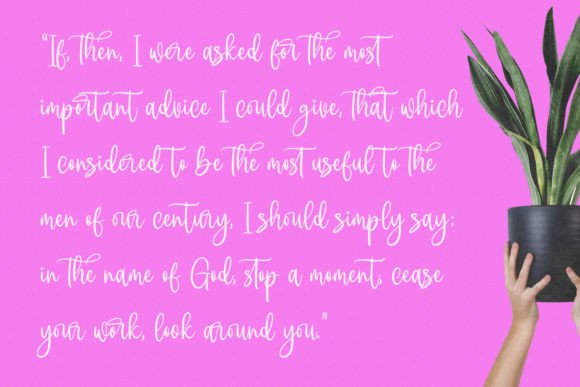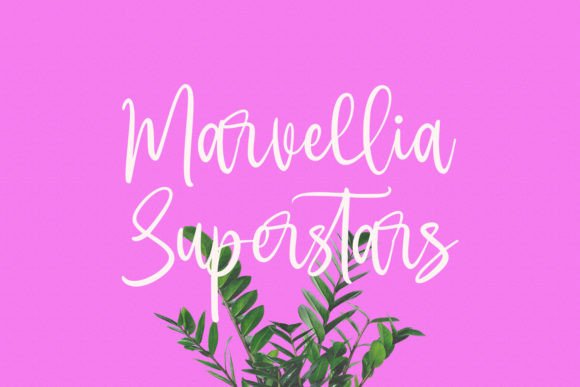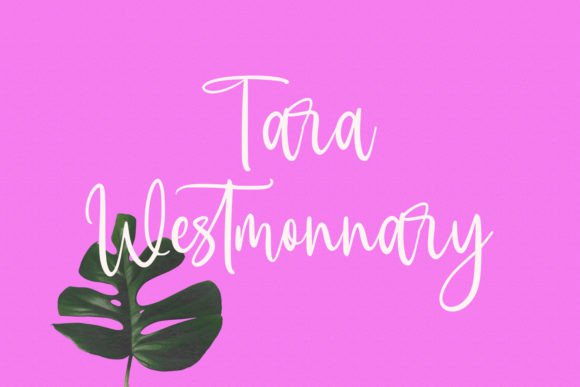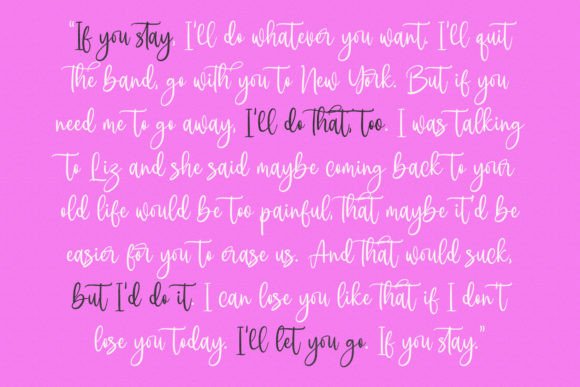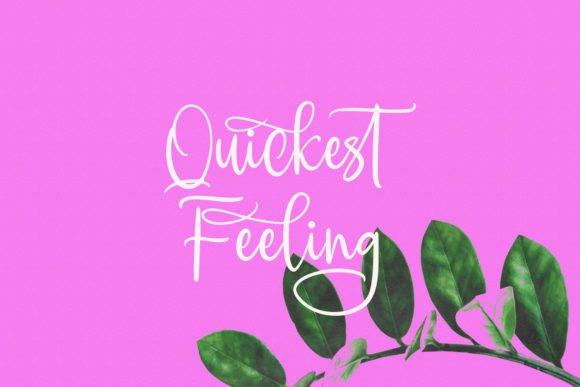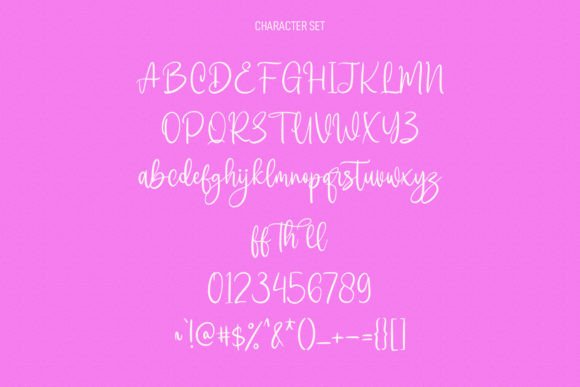
Introduction to Cleverest Font
Have you ever found yourself staring at a blank canvas, waiting for the perfect spark to ignite your creative project? For designers, this moment is a familiar feeling – the moment when everything comes together and your design takes shape. It’s in these moments that the right font can make all the difference. Enter the Cleverest Font, a sweet and adorable script font that’s about to become your new go-to design resource.
This high-quality font is a game-changer for designers, offering a unique touch to any project. Whether you’re working on a branding project or creating a social media graphic, the Cleverest Font has the potential to elevate your design and leave a lasting impression. And the best part? It’s available for free download, complete with a transparent background, making it easy to incorporate into your creative project.
Key Features of Cleverest Font
- Unique characteristics include its modern and sleek design, making it perfect for branding, logos, and advertising materials
Honest Review: Cleverest Font
I recently stumbled upon the Cleverest Font while searching for a unique design resource for a creative project. I was blown away by its high quality and versatility. The font is a great addition to any design tool kit, offering a wide range of styles and weights.
What works well: ✨ The Cleverest Font is incredibly easy to use, with a transparent background that makes it perfect for overlays and graphics. The font is also highly customizable, allowing you to adjust the size, color, and style to fit your design needs.
- Easy to use and customize
However, I did encounter some limitations: ⚠️ The font is not compatible with all design software, and some users may experience issues with text alignment.
Overall, I’m impressed with the Cleverest Font. Its unique design and high-quality features make it a valuable resource for any creative project. With its free download option, it’s a great addition to any design tool kit.
Cleverest Font: A High-Quality Design Resource
Tips for Getting the Most Out of Cleverest Font
For the best results, use Cleverest Font in conjunction with other high-quality design resources. Experiment with different font sizes, colors, and styles to find the perfect combination for your project.
Common Use Cases for Cleverest Font
Cleverest Font is ideal for use in a variety of creative projects, including graphic design, digital art, and typography-based designs. Its high-quality design and transparent background make it a versatile resource for any project.